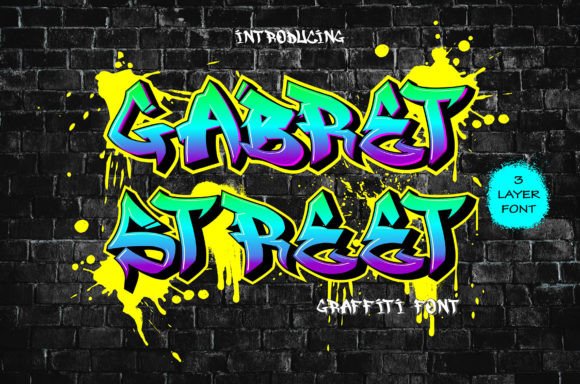
Gabret Street Font, created by Cikareotype, is the ultimate font for those seeking the best fonts for car decals. With its bold and sharp edges, this urban graffiti font is guaranteed to catch the eye and make a statement.
Are you tired of boring and generic fonts? Look no further than Gabret Street. This font is the perfect choice for anyone wanting to add a touch of edginess and attitude to their designs. Whether you're working on music posters, apparel designs, shirts, or streetwear, Gabret Street will elevate your projects to a whole new level.
What sets Gabret Street apart from other fonts is its unique style. With its bold and powerful look, this font is ideal for death metal or urban graffiti themes. It exudes confidence and captures the rebellious spirit of the streets.
But Gabret Street is not just about looks. It is also incredibly versatile and easy to work with. Its sharp edges and clean lines ensure that your text stands out and remains readable, even from a distance. This makes it perfect for car decals, where visibility is key.
Imagine driving down the street with your car adorned with Gabret Street Font decals. Heads will turn, and people will take notice. This font is a game-changer when it comes to making a statement and leaving a lasting impression.
In summary, Gabret Street Font is the ultimate font for car decals. Its bold and sharp edges, unique style, and versatility make it the go-to choice for anyone wanting to make a statement. Download it now and let your designs speak for themselves.